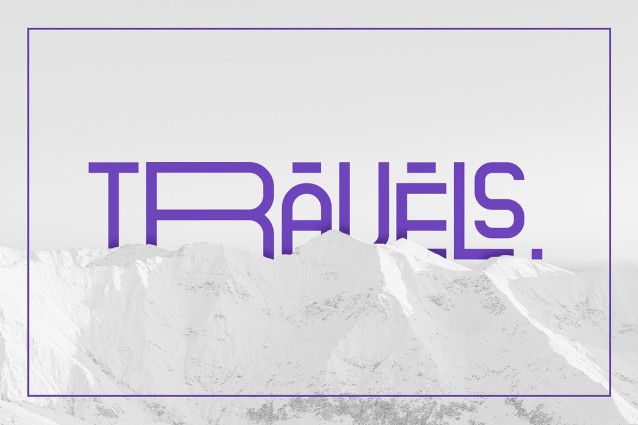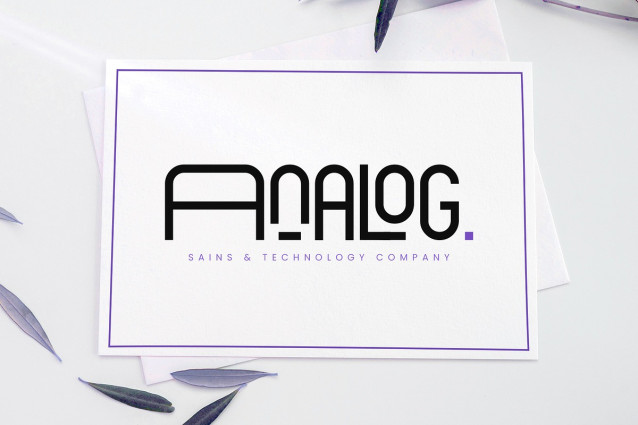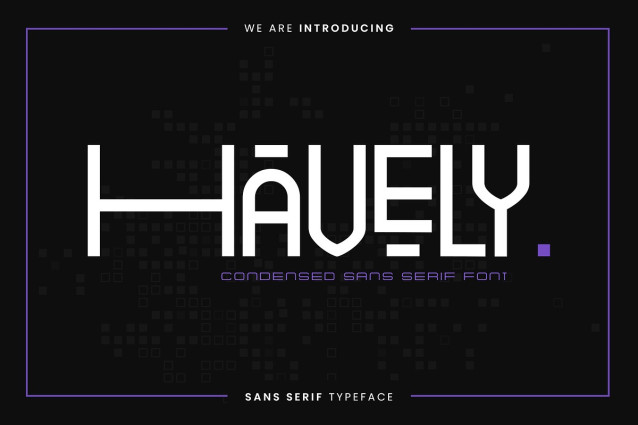
Havely Font
Havely Font – Condensed Sans Serif is a balanced, smooth, elegant and stylish sans serif font. He has a beautiful character. It fits perfectly with invitation card designs, company logos, movie titles, movie names, business cards, book titles, brand names and various other designs. Havely Condensed Sans Serif is a subtle sans serif font that exudes sophistication and elegance. Its stylish alternations and ligatures make this font the perfect partner for any project.